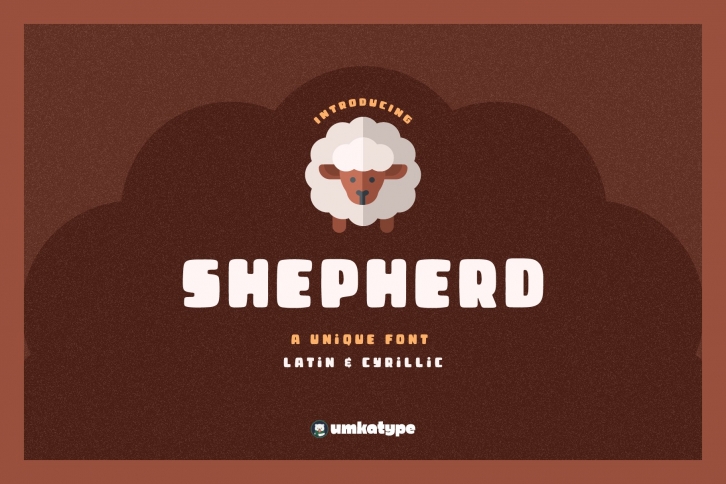
Shepherd Font
- Shepherd is a carefully crafted font.
- Multilingual: It has Extended Latin and Extended Cyrillic letters.
Shepherd created for games, web design, branding and social media works.